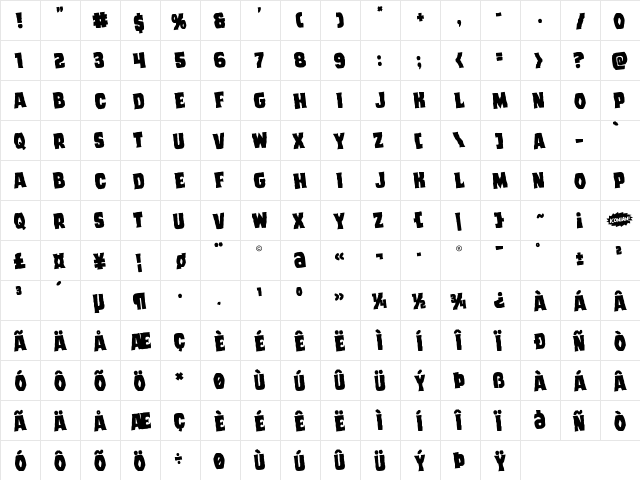
Dusk Demon Rotated Regular
Design Context for Dusk Demon Rotated Typeface
Dusk Demon Rotated is a composed and adaptable typeface that performs quietly and consistently across a wide range of design contexts.